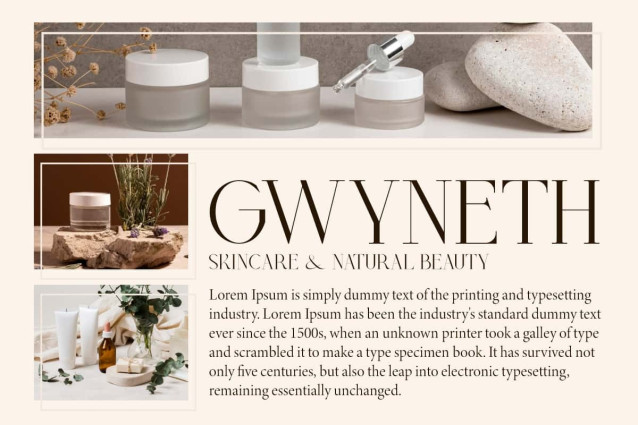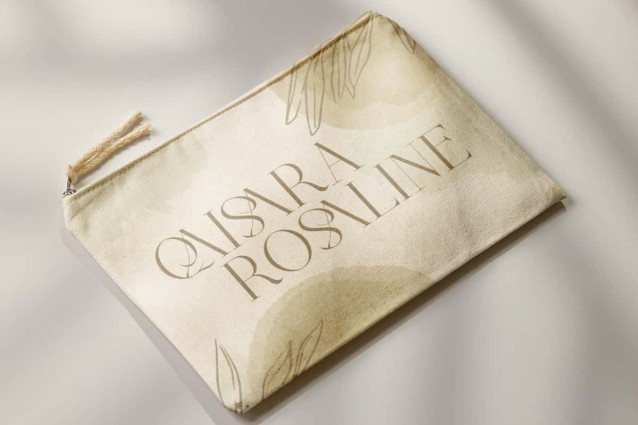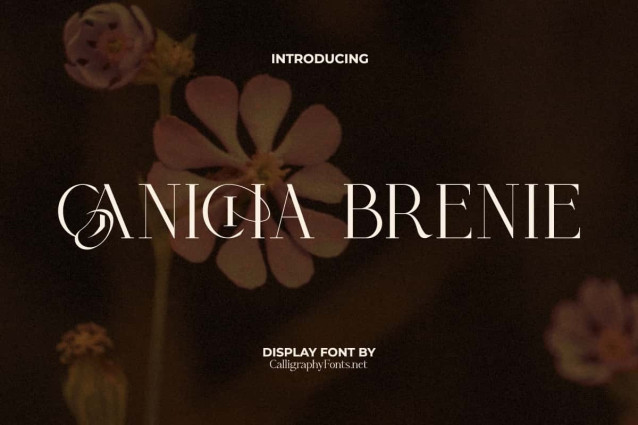
Ganicha Brenie Font
Ganicha Brenie Font is a modern classic serif look with many curved ligature options. This letters is filled with sleek and refined character while still maintaining its graceful shape. Perfect for banners, blogs, headers, invitation, label tag, logos, mockup, packaging, printed materials, stationery, template, titles, watermark, website, and others.
Ganicha Brenie Font is a fashionable serif typeface that not only looks sophisticated but also charming. It comes with its flawless curves as one of its attractive characteristics. Whether for personal or commercial use, this font can serve your purpose well. Perfect for boutique, fashion, graphic design, photography, skincare, wedding, and others.